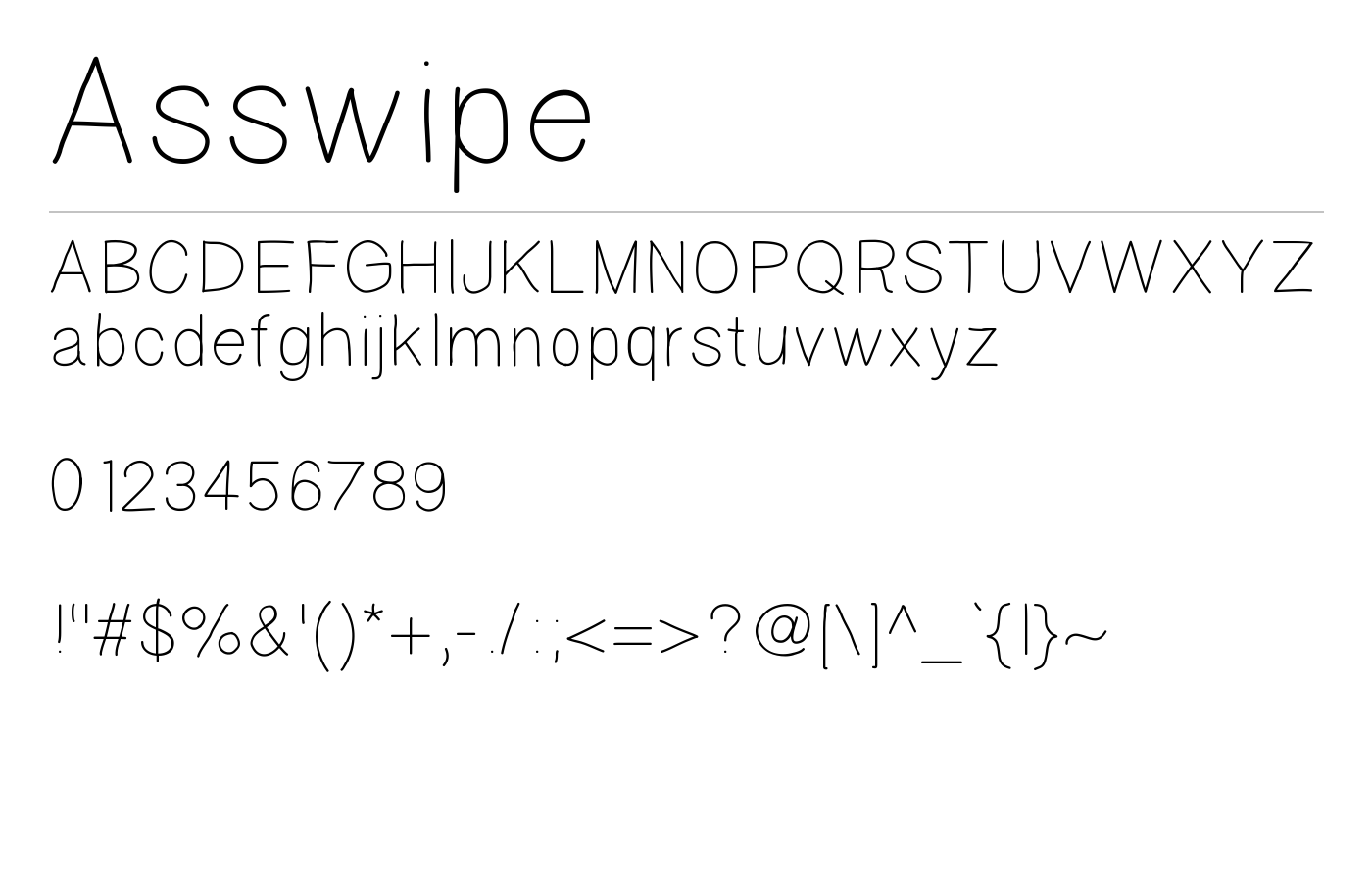
Asswipe is a delicate, narrow sans serif font with a hand-drawn, whimsical feel. Its very thin strokes and tall, slightly irregular letterforms give it a playful yet refined personality, making it suitable for creative projects, informal branding, and lighthearted editorial work where a quirky, approachable style is desired. This font works best in headlines or short text where its unique character can shine without sacrificing readability.